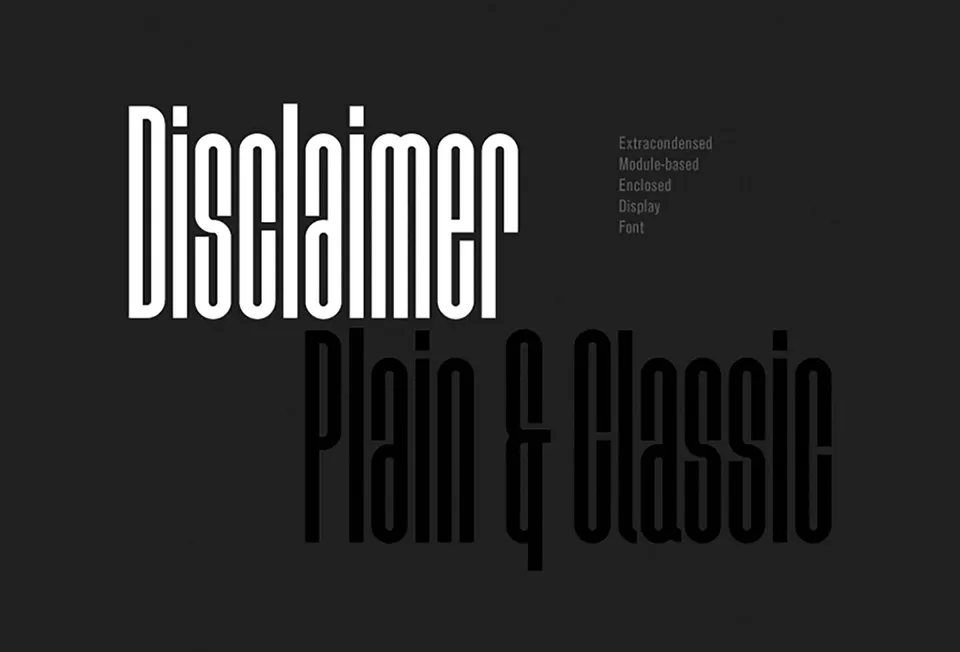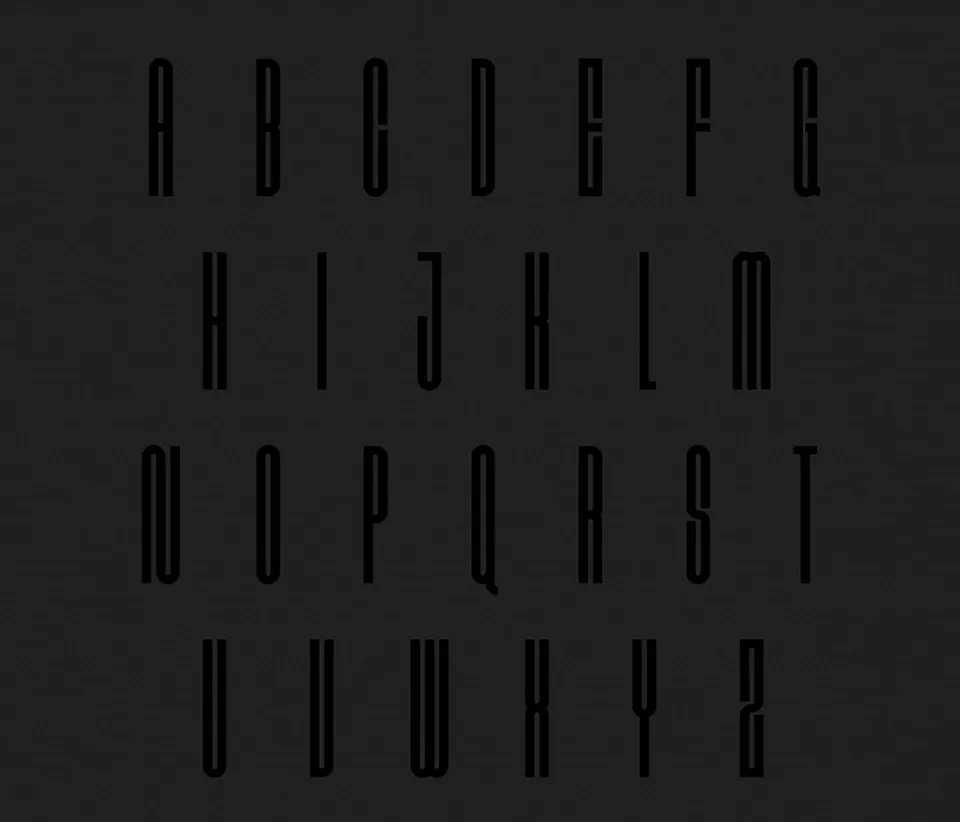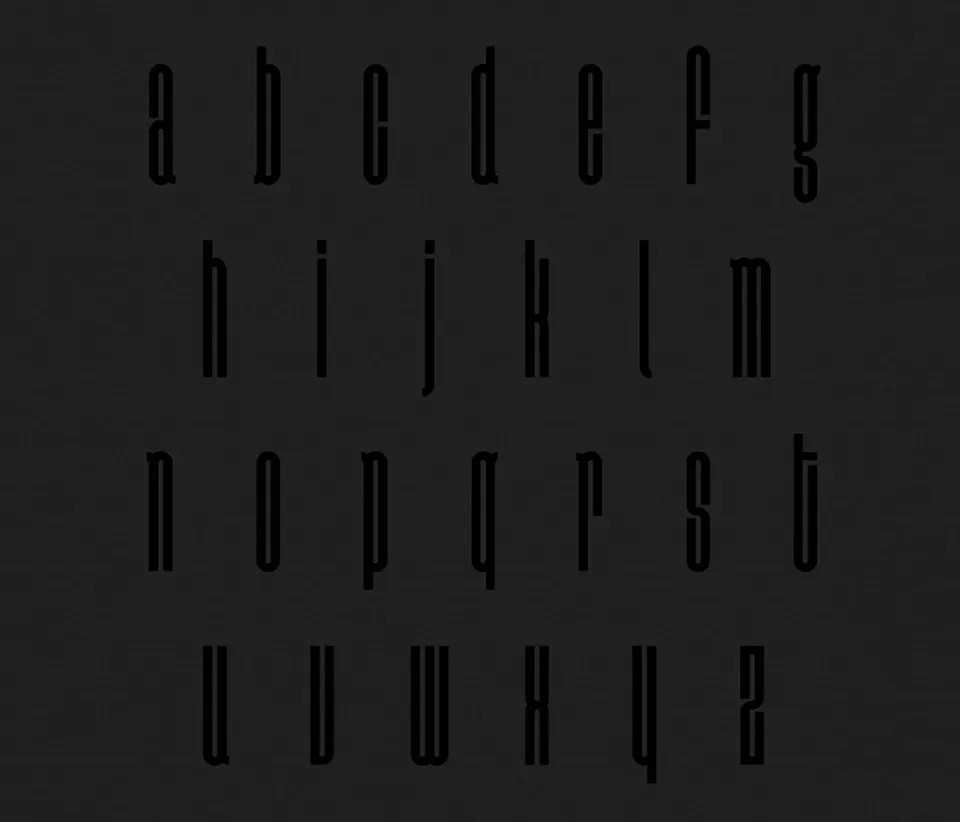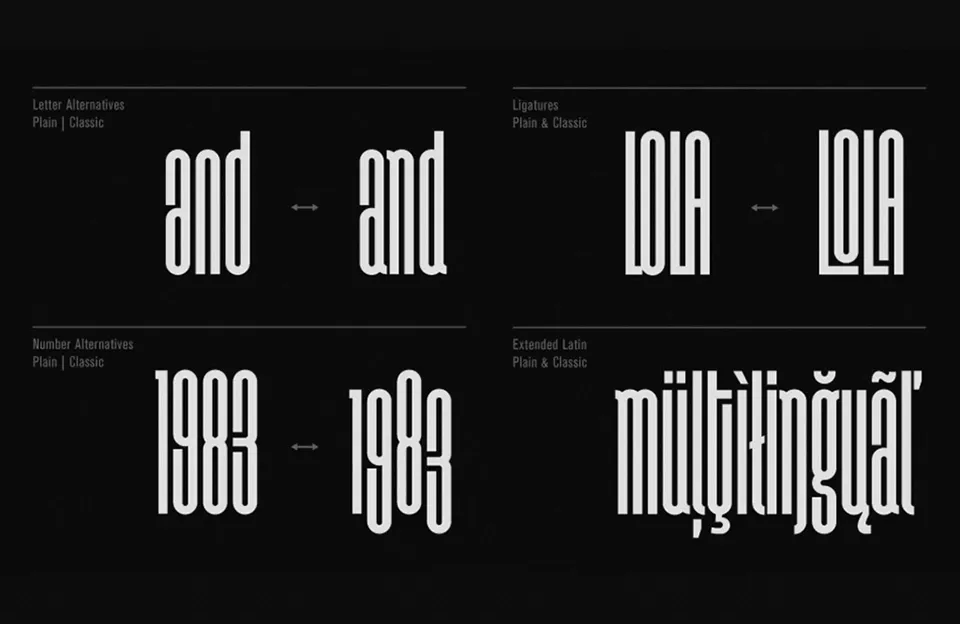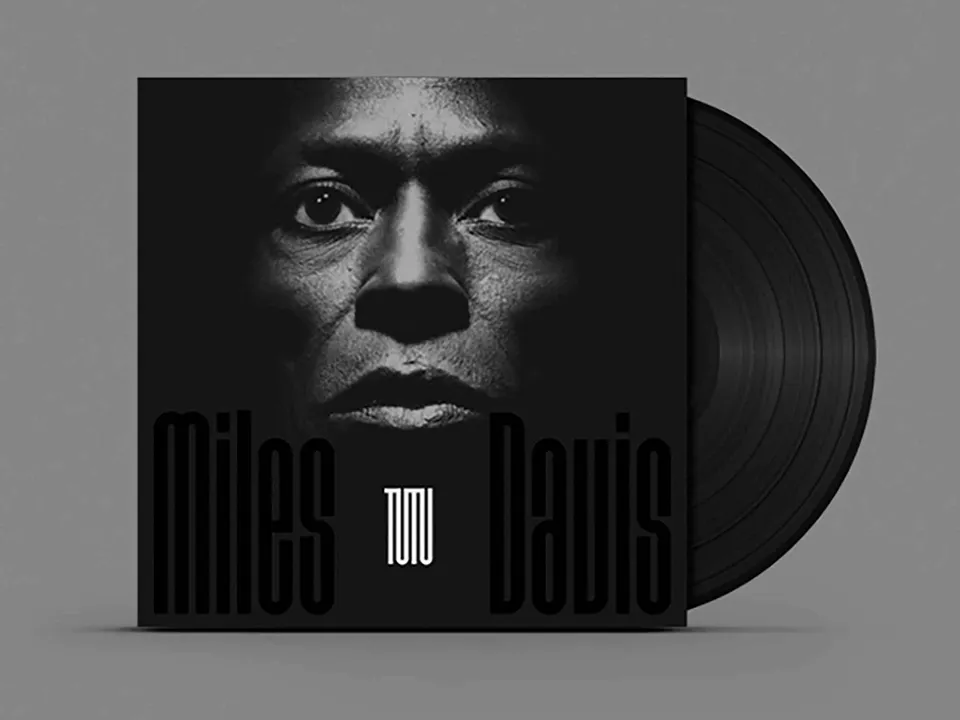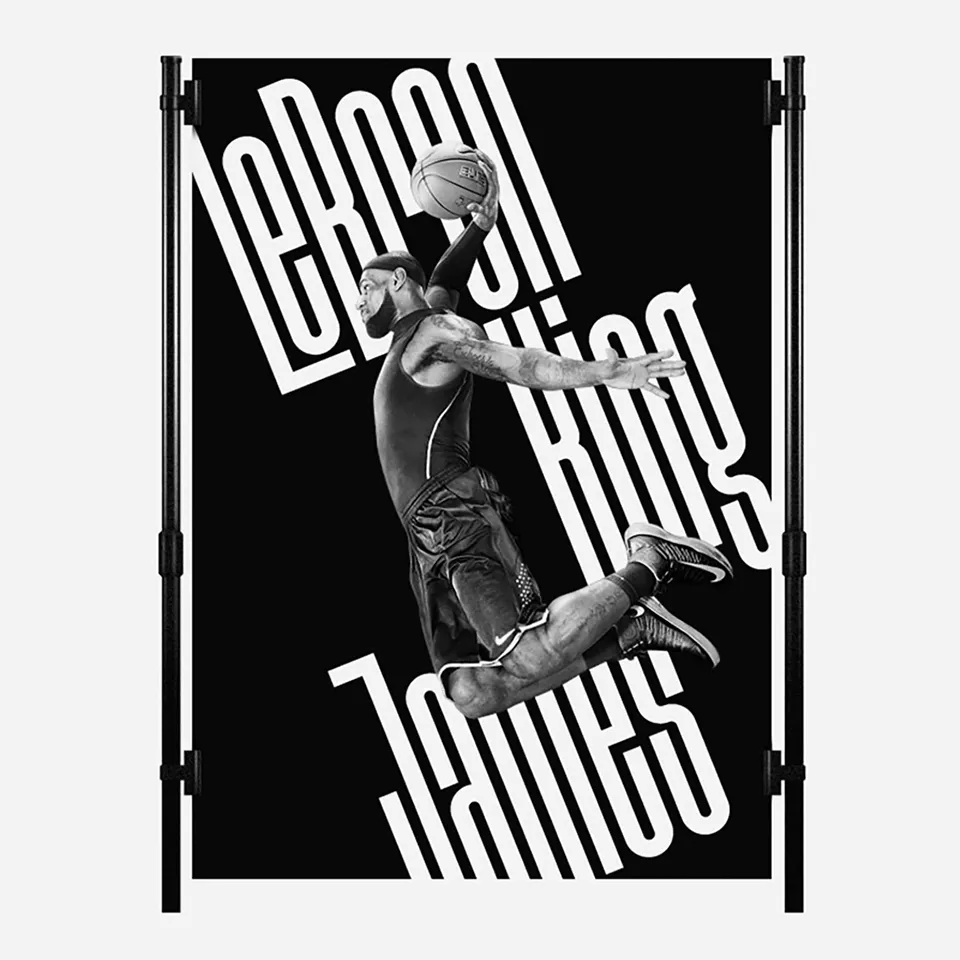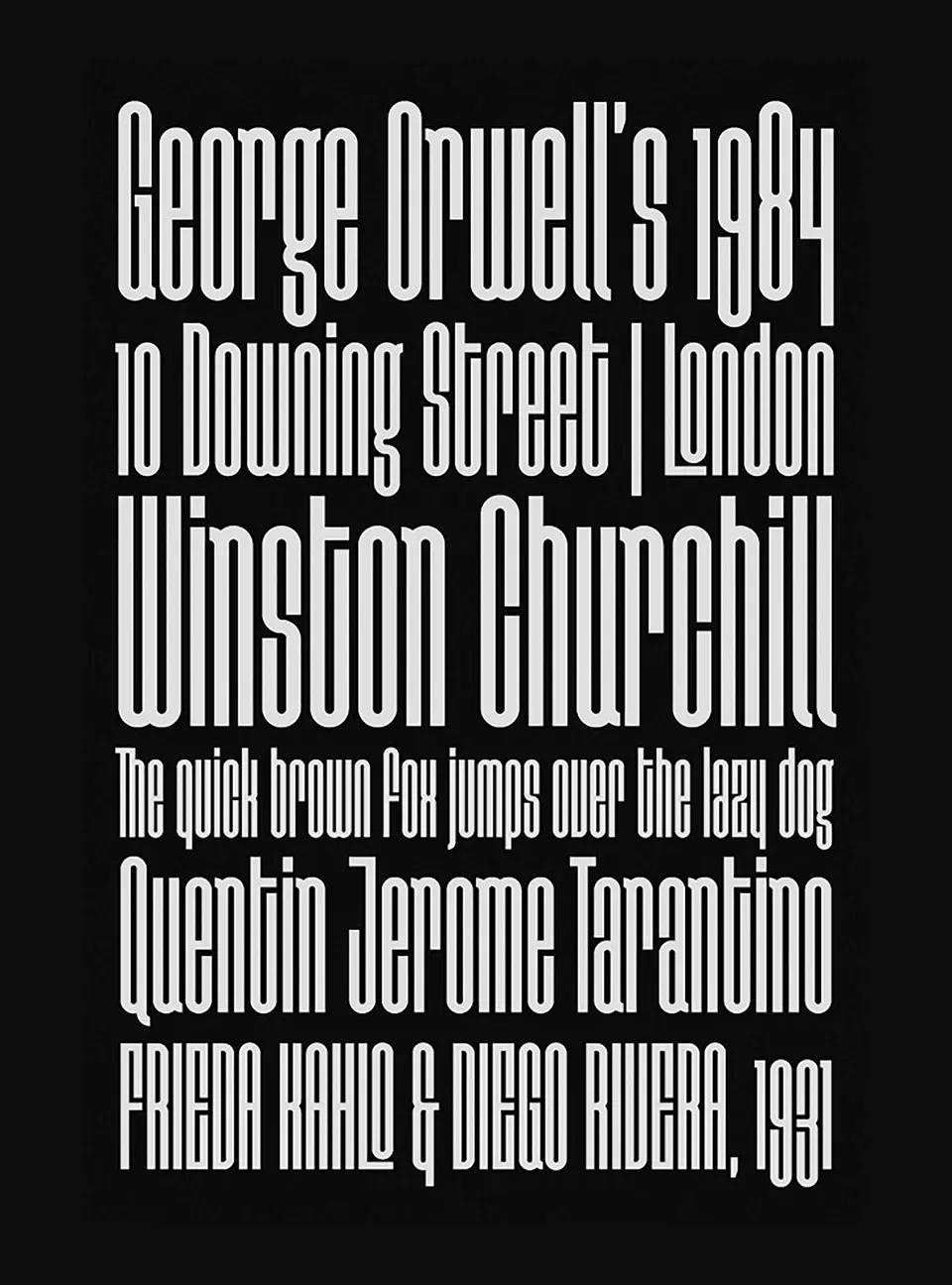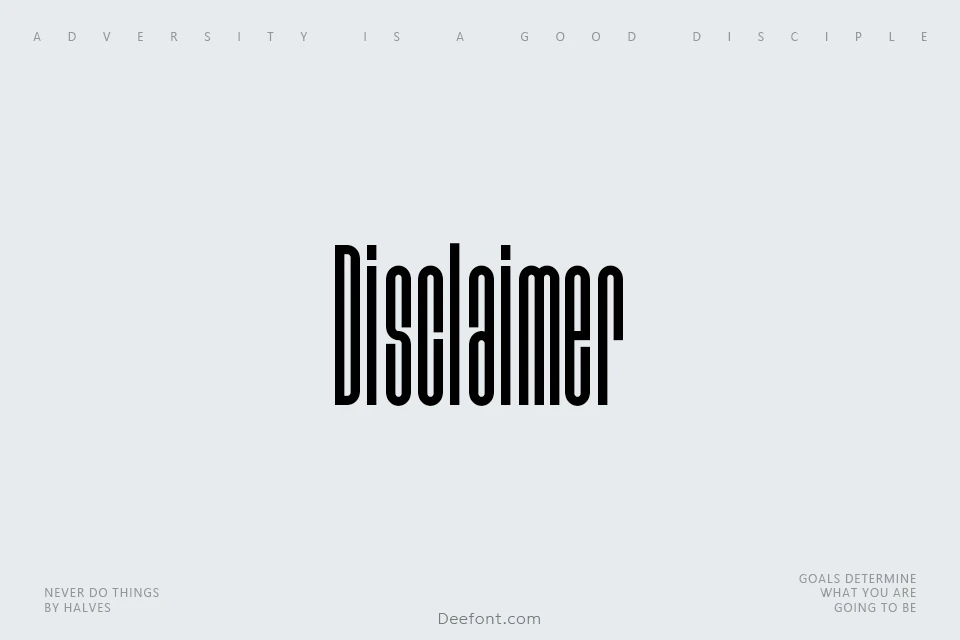
Disclaimer Font
Disclaimer Font is a condensed display font crafted by designer Boris Bonev. This striking typeface is module-based and comes in two distinct styles: Plain and Classic. The Plain version offers a straightforward, simple design, while the Classic style features unique character placements and eye-catching ligatures. With its ultra-condensed and modern aesthetic, Disclaimer includes uppercase and lowercase letters, numbers, and symbols, supporting multiple languages. It’s highly versatile, ideal for headlines, logos, branding, packaging, and adding a stylish touch to various creative projects.